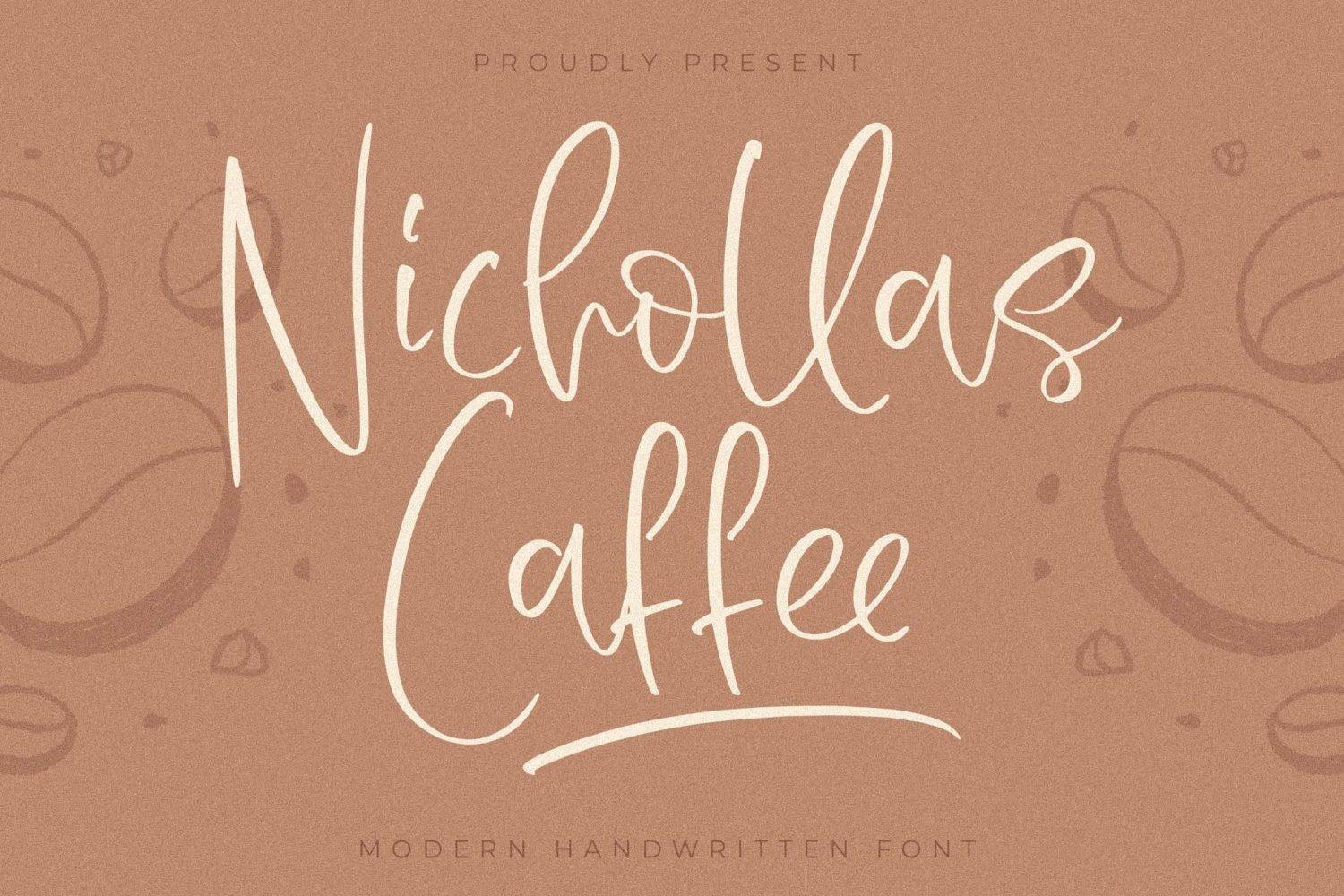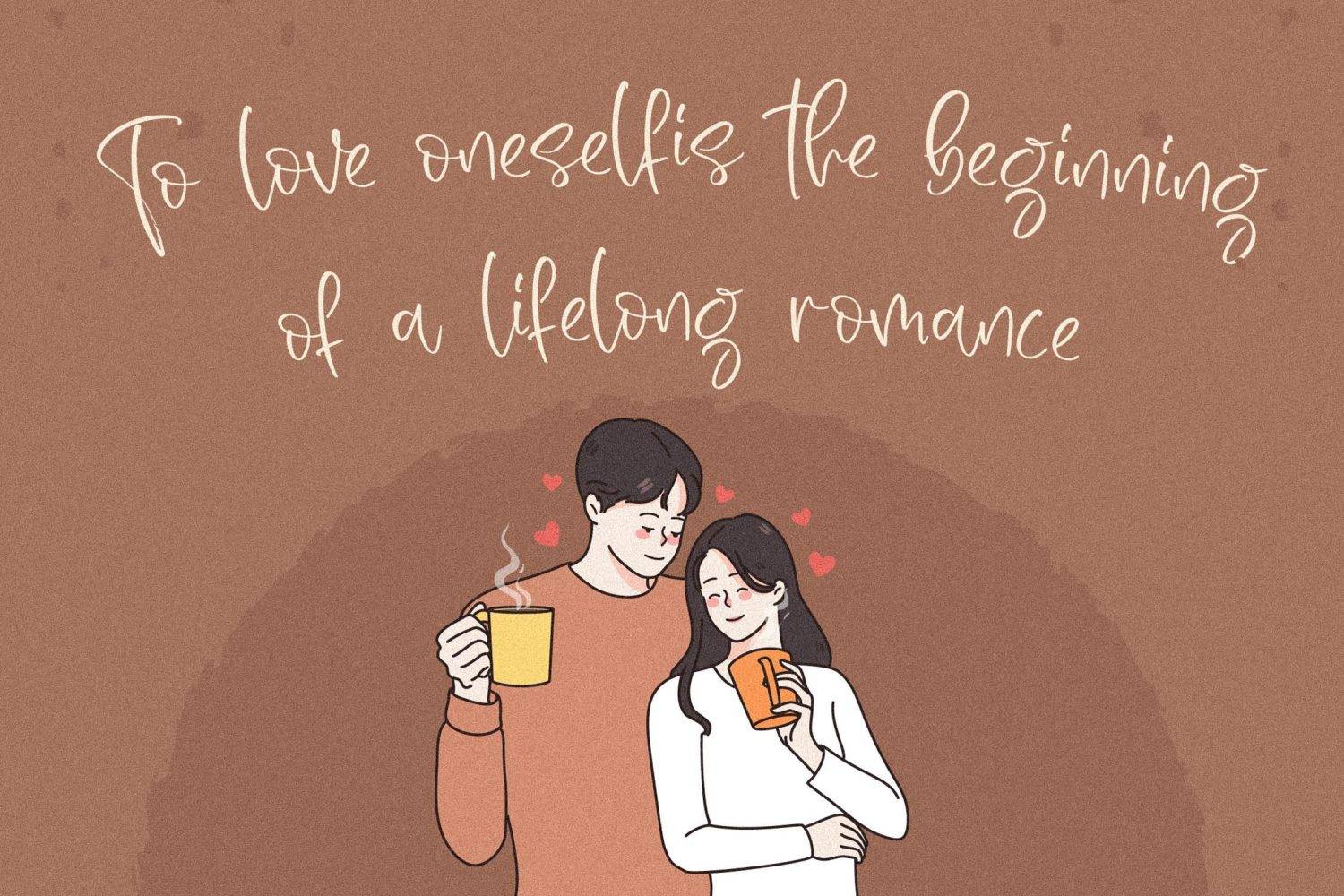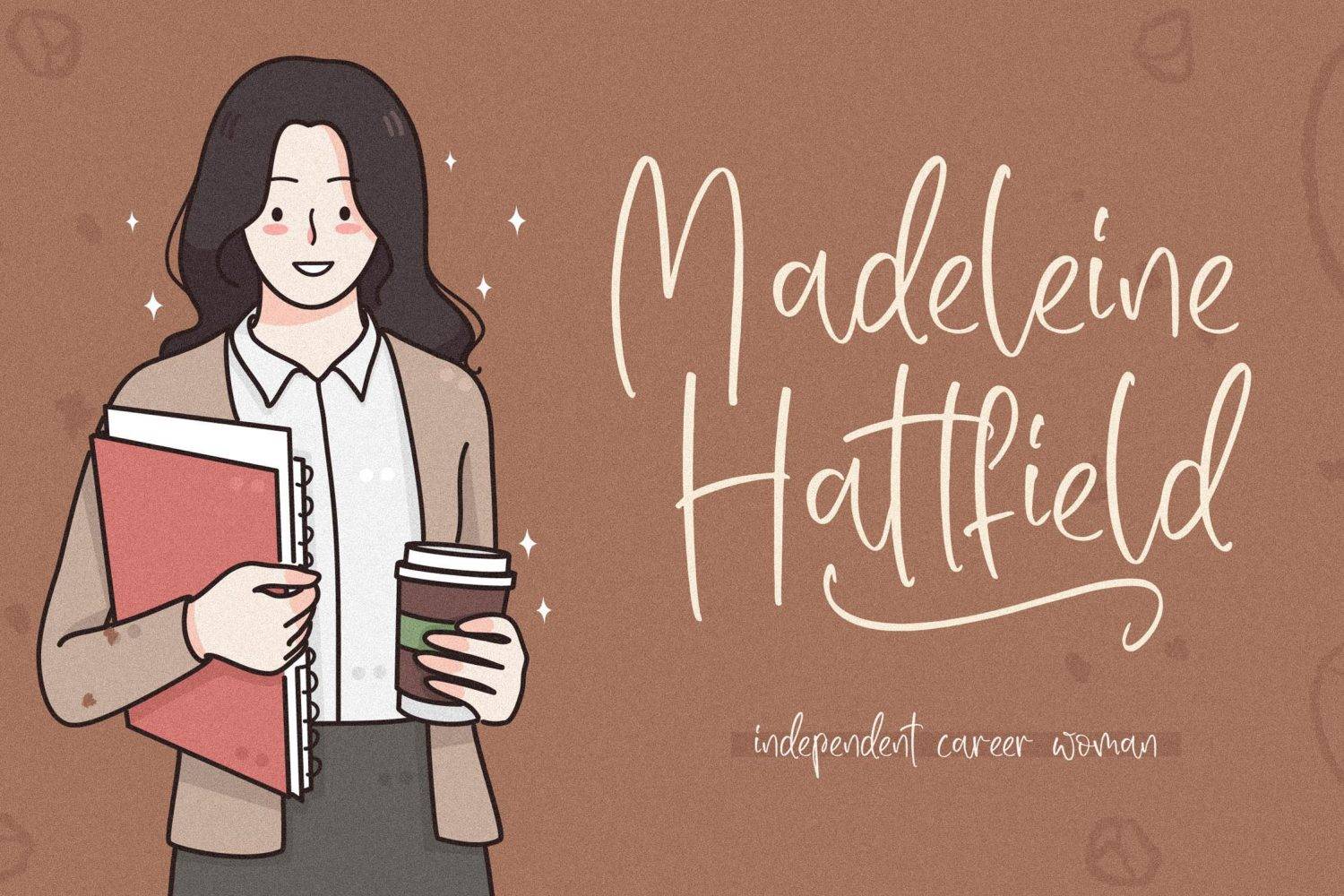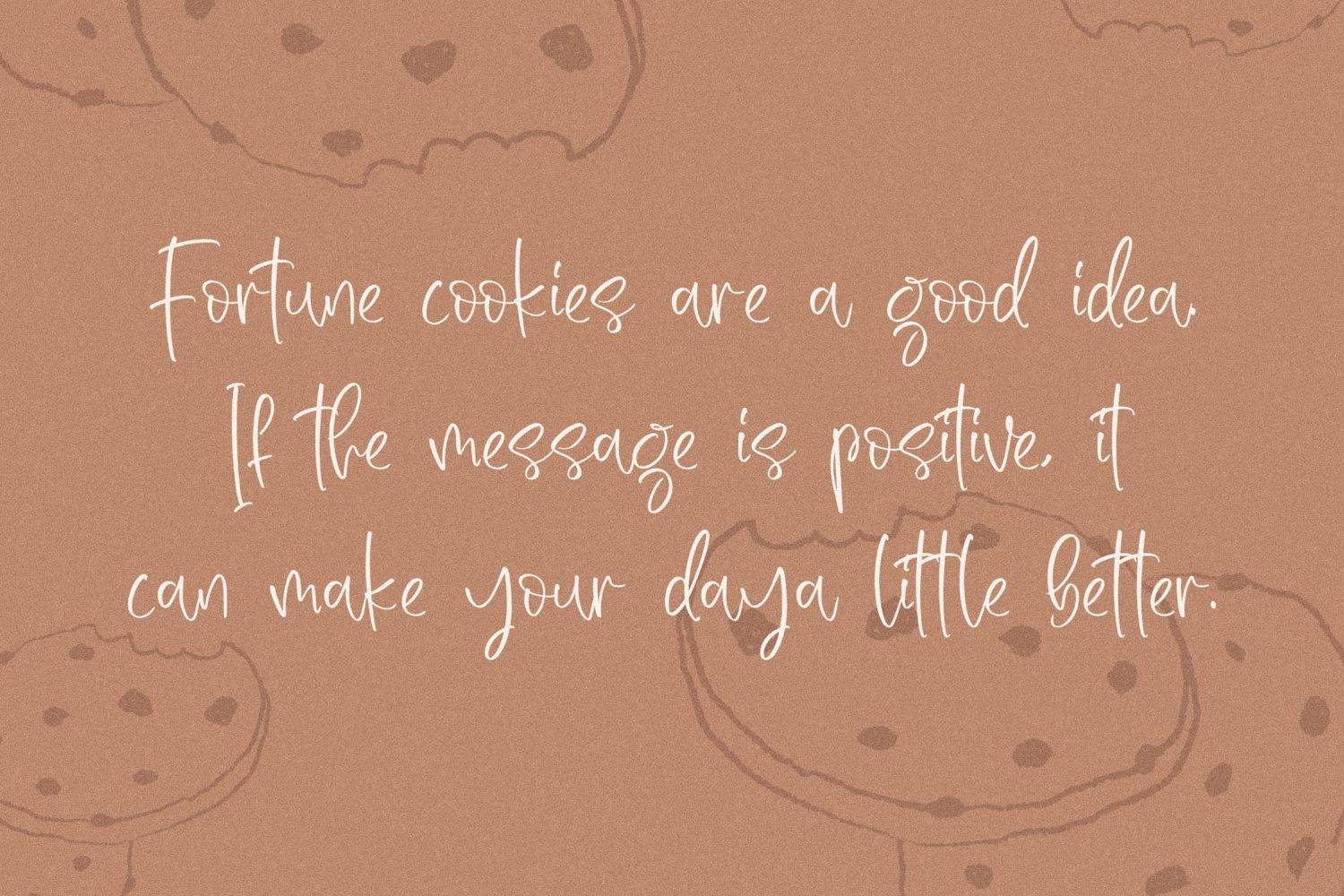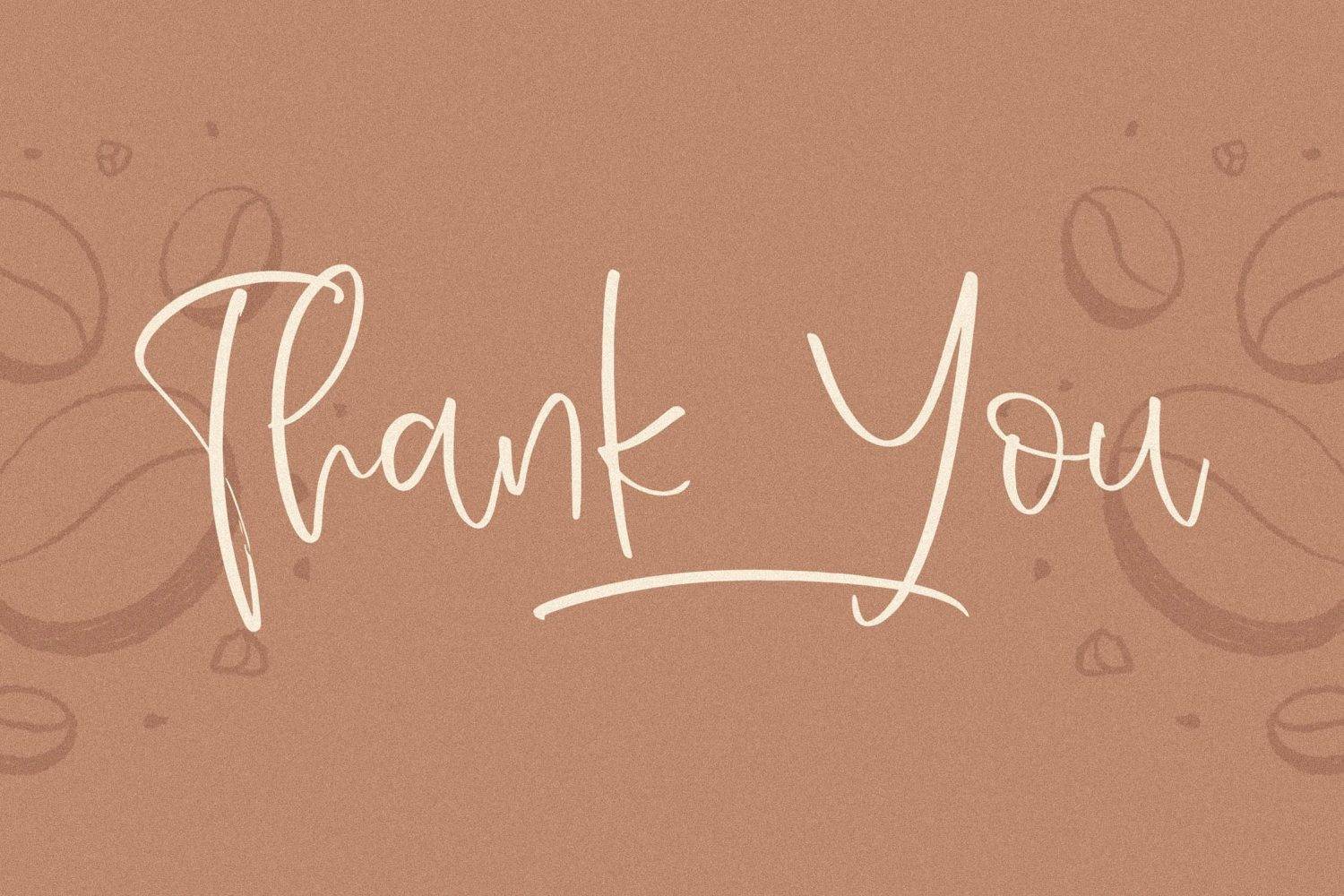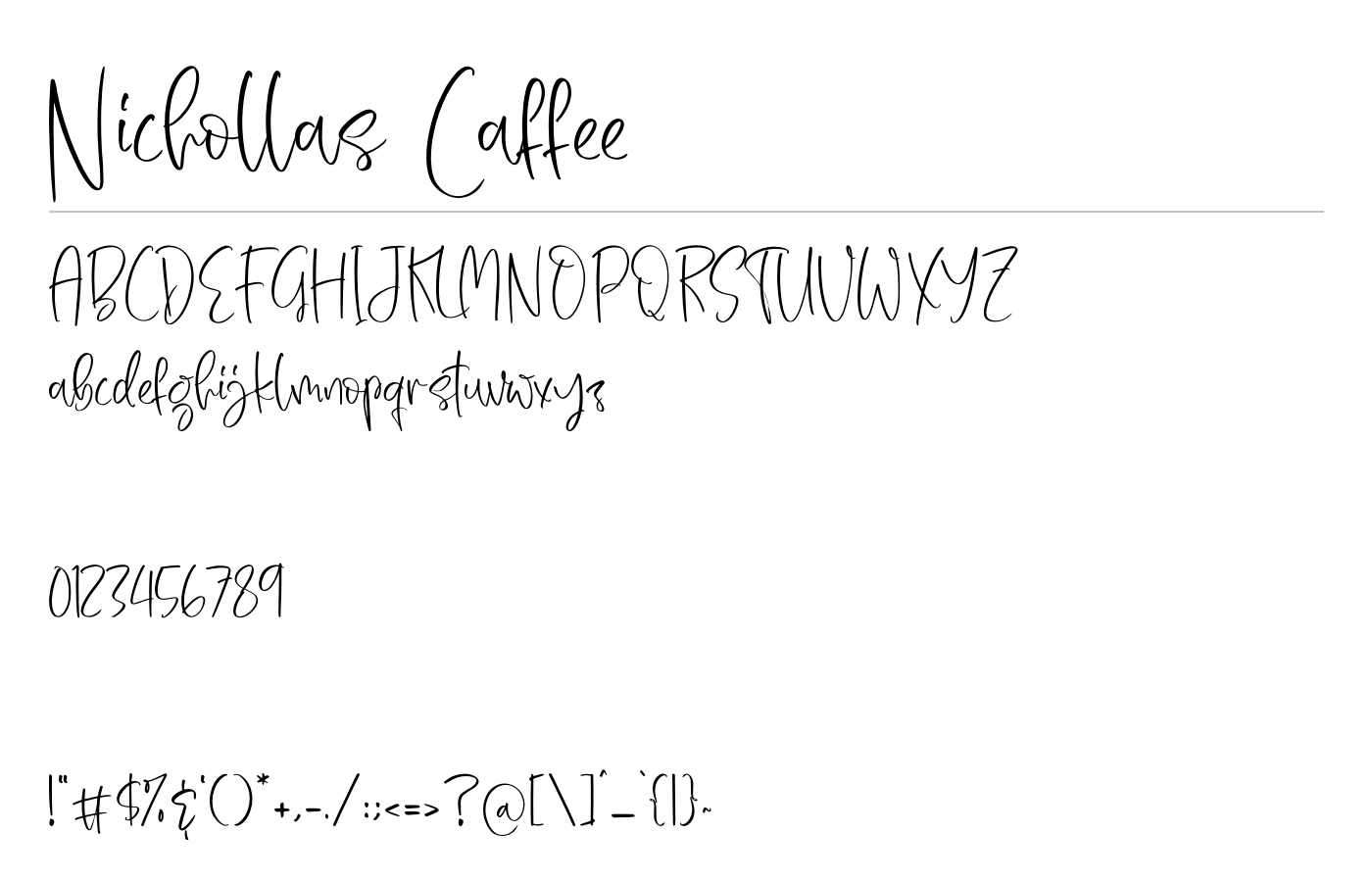
Nichollas Caffee is a delicate, handwritten script font with a tall, narrow structure and graceful strokes that give it an airy and elegant feel. Its thin lines and casual, slightly whimsical letterforms make it perfect for adding a personal, artistic touch to branding, invitations, and creative projects where a light, modern charm is desired. This font works beautifully in contexts where a friendly yet refined handwritten style can stand out, especially in logos, headlines, and packaging.
Nichollas Caffee Font
About Nichollas Caffee Font